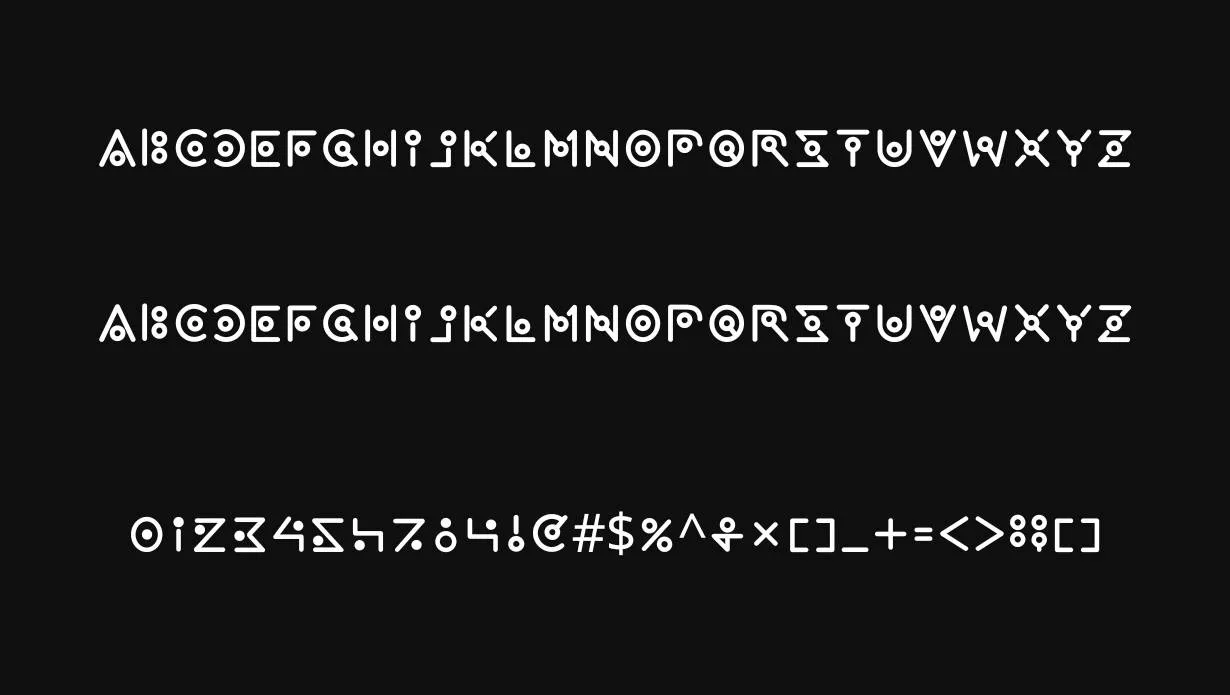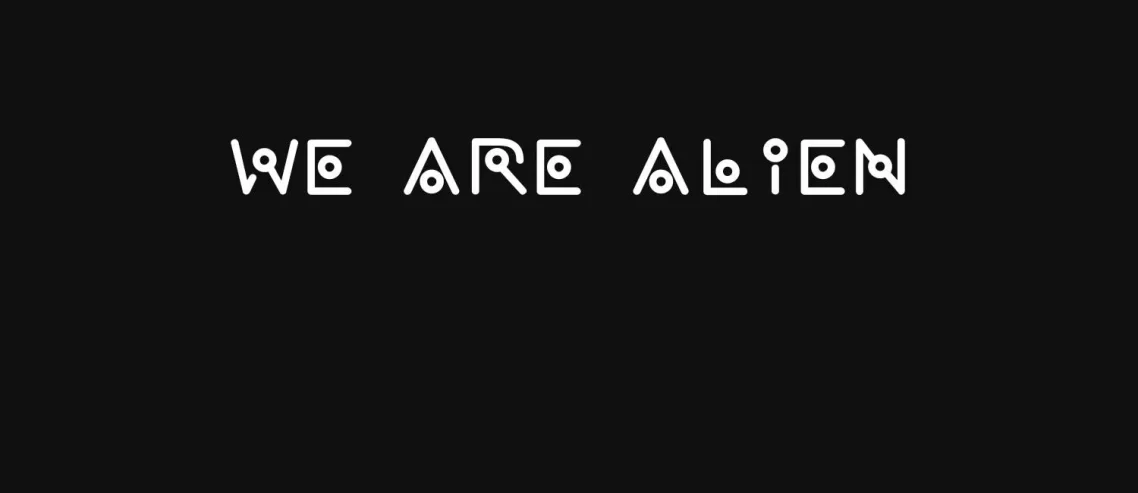
Crafted by Galactic Creations, the “We Are Alien” font encapsulates the essence of otherworldly aesthetics. Its sleek and futuristic design evokes a sense of extraterrestrial sophistication, with unique characters that appear as if they were plucked from a cosmic alphabet.
This font is an ideal choice for projects related to science fiction, space exploration, or any design seeking a touch of intergalactic intrigue.